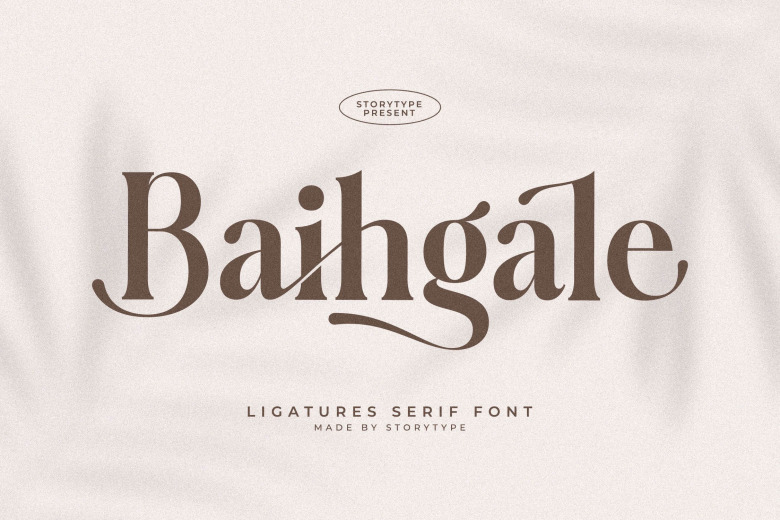
Baihgale Font
Baihgale is a modern and classic serif font, it comes with unique style and fancy look. This typeface is perfect to use it as an elegant & luxury logo, book or movie title design, fashion brand, magazine, social media, wedding card, clothers, etc.
Baihgale Serif Font